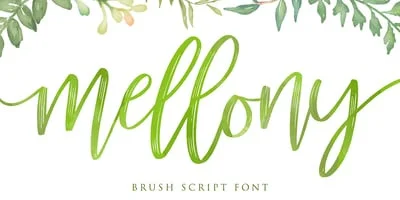
Mellony Font
Mellony Font is ideal for sweet design projects including confectionery branding, bakery shop signage, dessert menu layouts, candy store promotions, patisserie marketing materials, sweet treat packaging, honey producer labels, and delightful social media campaigns. This charming typeface works perfectly for ice cream parlors, chocolate boutiques, wedding cake designers, artisan candy makers, and projects that celebrate sweetness, indulgence, and culinary craftsmanship in the confectionery arts.
What makes Mellony Font exciting is its delightfully sweet character that perfectly captures the essence of confectionery artistry and sugary indulgence. The font features smooth, rounded letterforms with honey-like flow that reflects the luxurious texture and irresistible appeal of fine confections. Its warm design elements embody the spirit of culinary sweetness and artisanal craftsmanship, making it perfect for projects that need to convey comfort, quality, and irresistible temptation. The carefully crafted curves create an atmosphere of cozy sweetness and premium confectionery excellence.
Mellony Font comes in multiple family variations including light, regular, bold, and extra sweet styles. Each weight maintains the distinctive confectionery character while offering different levels of sweetness intensity and culinary presence. The font family includes candy alternates, honey ligatures, and dessert variations that provide designers with comprehensive options for creating truly delicious and appetizing typographic compositions that celebrate the art of sweet indulgence.